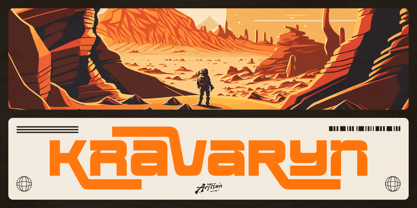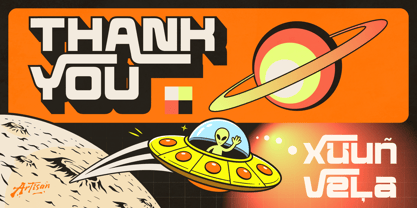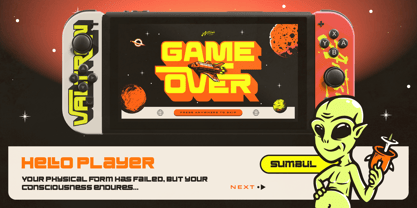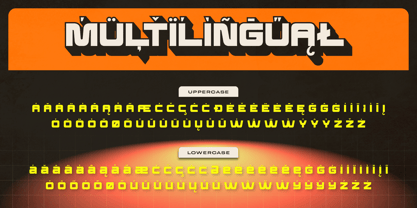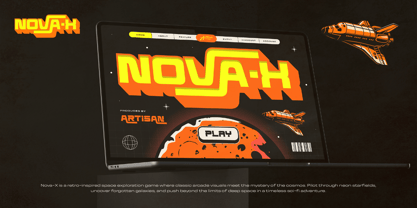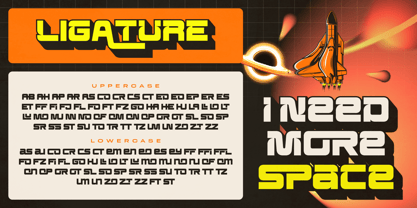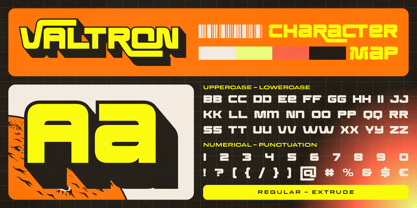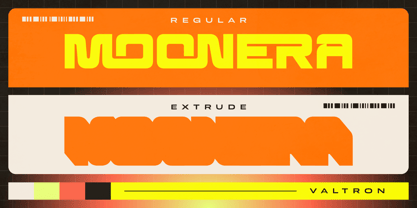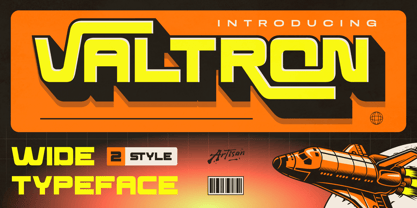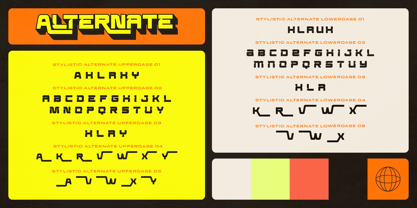
Valtron
The Valtron Font Family was designed by Meidy Meichico and published by Artisan Themes. Valtron contains 2 styles and family package options. More about this family
Valtron is a bold wide typeface inspired by retro-futuristic sci-fi visuals and space exploration aesthetics. With its strong geometric shapes, wide proportions, and sharp cuts, Valtron instantly delivers a powerful, futuristic vibe. This font comes with 2 styles: Regular and Extrude, allowing you to create depth, dimension, and eye-catching typography. It also includes ligatures and stylistic alternates, giving you more flexibility to customize your lettering and create unique logotypes or headlines. Valtron works best for sci-fi branding, futuristic logos, posters, game titles, space-themed designs, album covers, apparel, and bold display typography. Whether you want something loud, modern, or cosmic, Valtron is built to stand out. Features: A - Z set (Uppercase & Lowercase), Number, Punctuation, Alternates, Ligatures, Multilingual